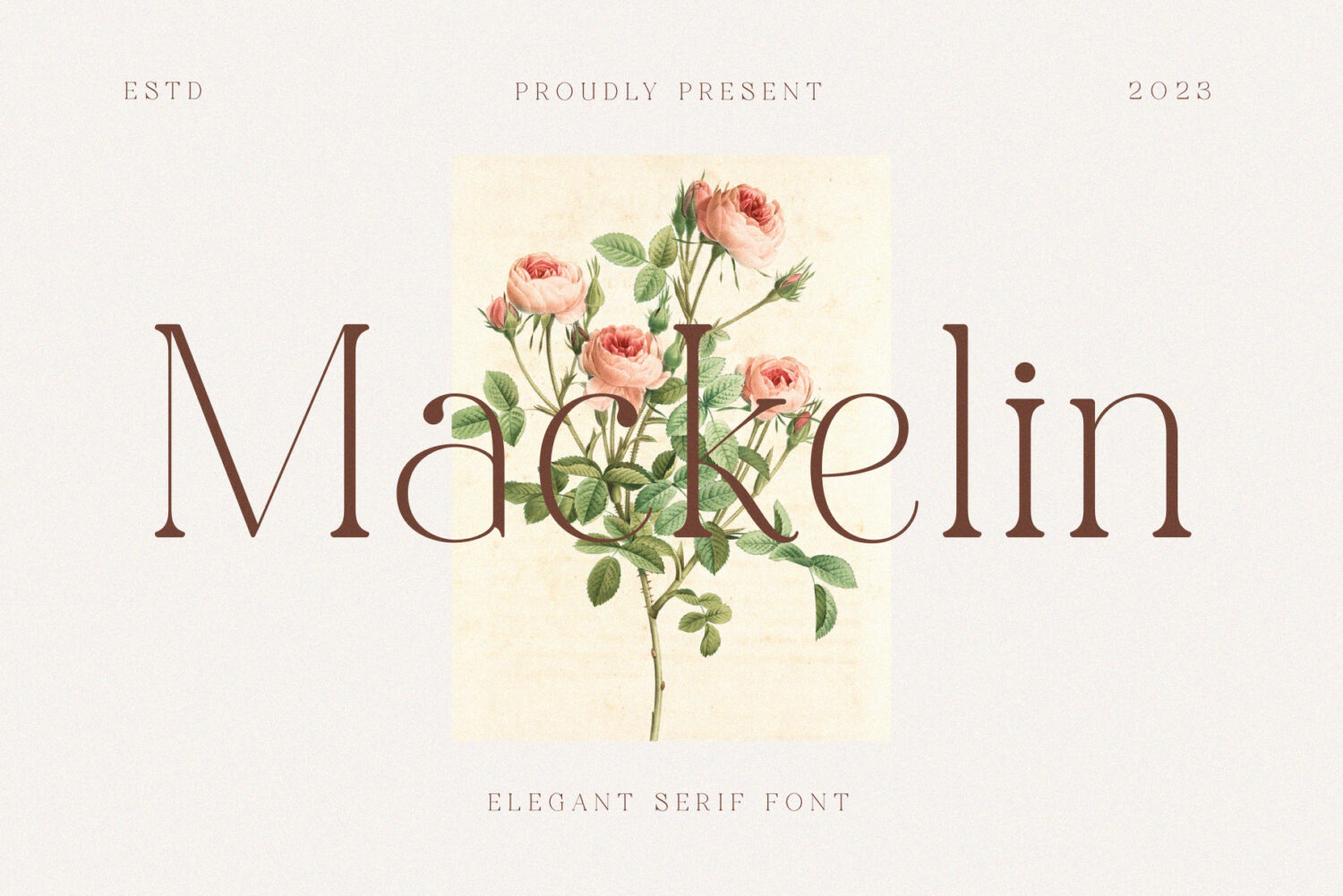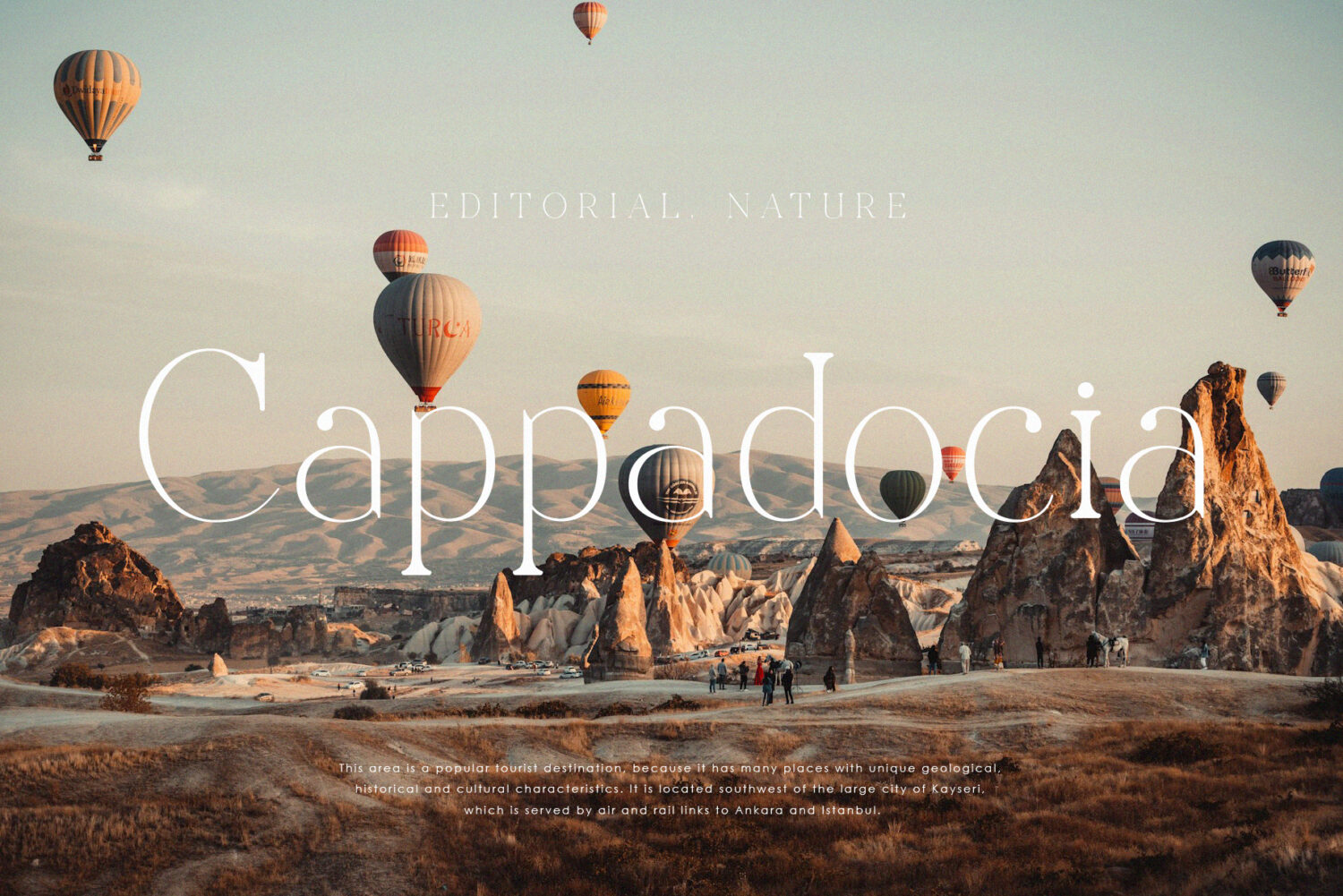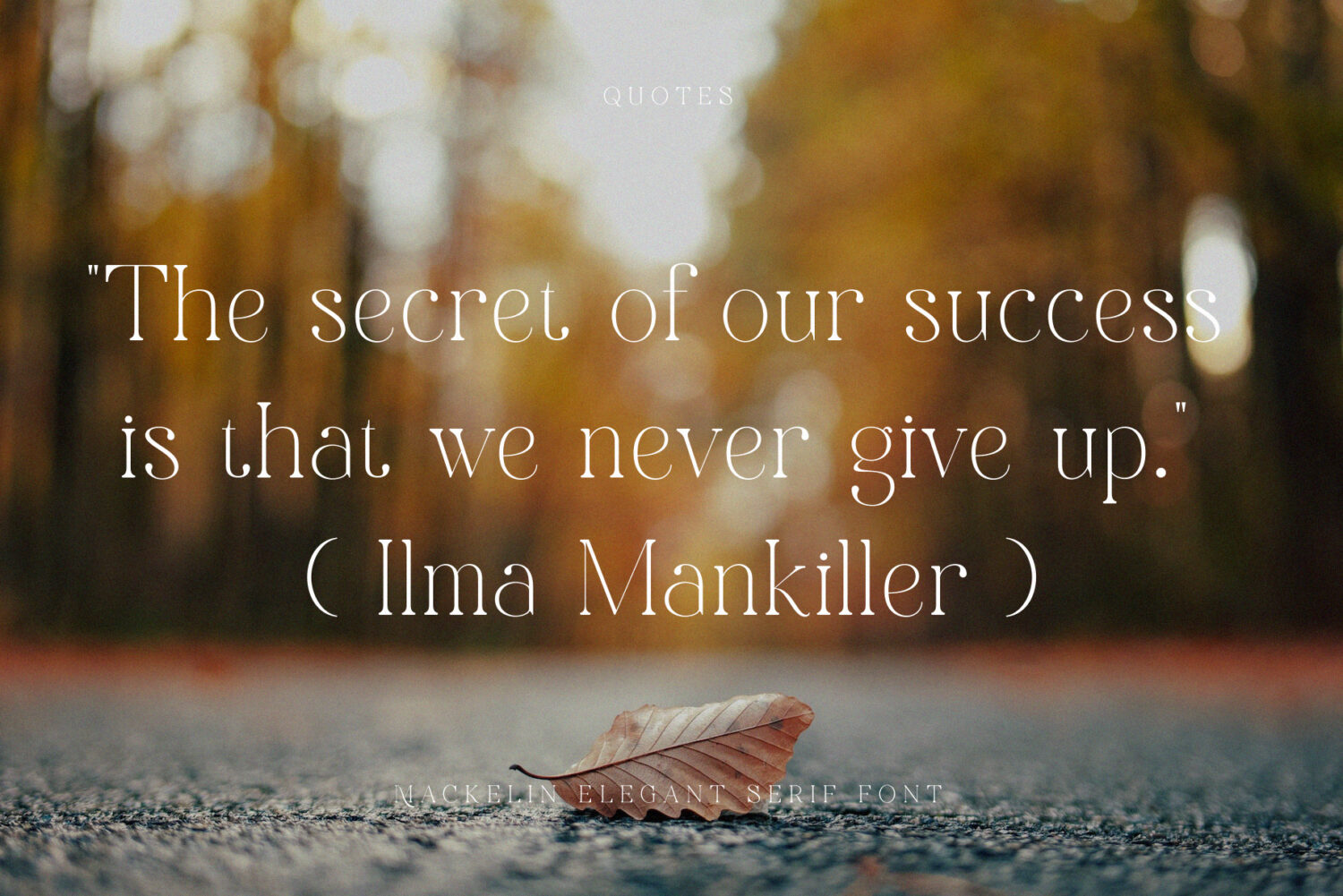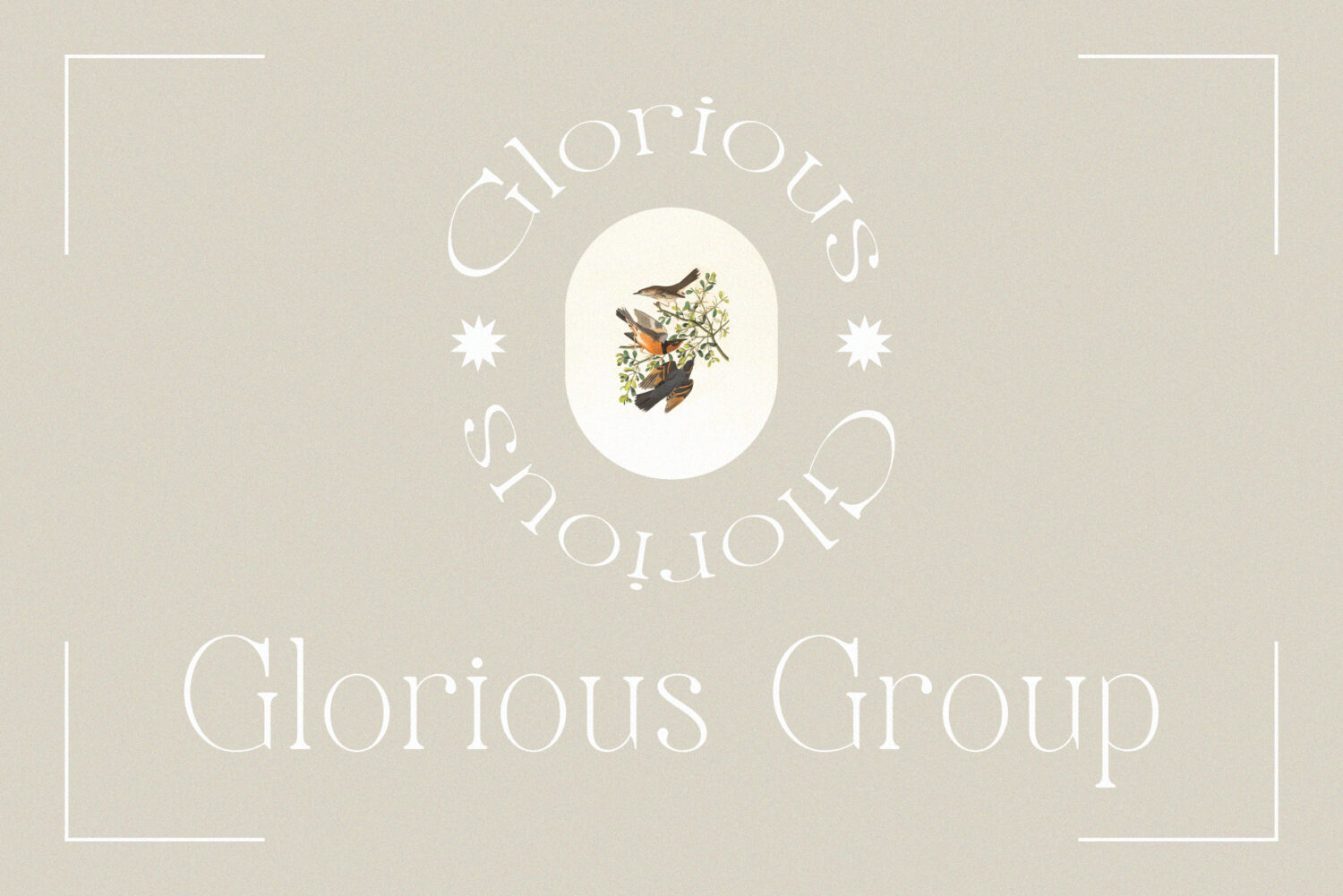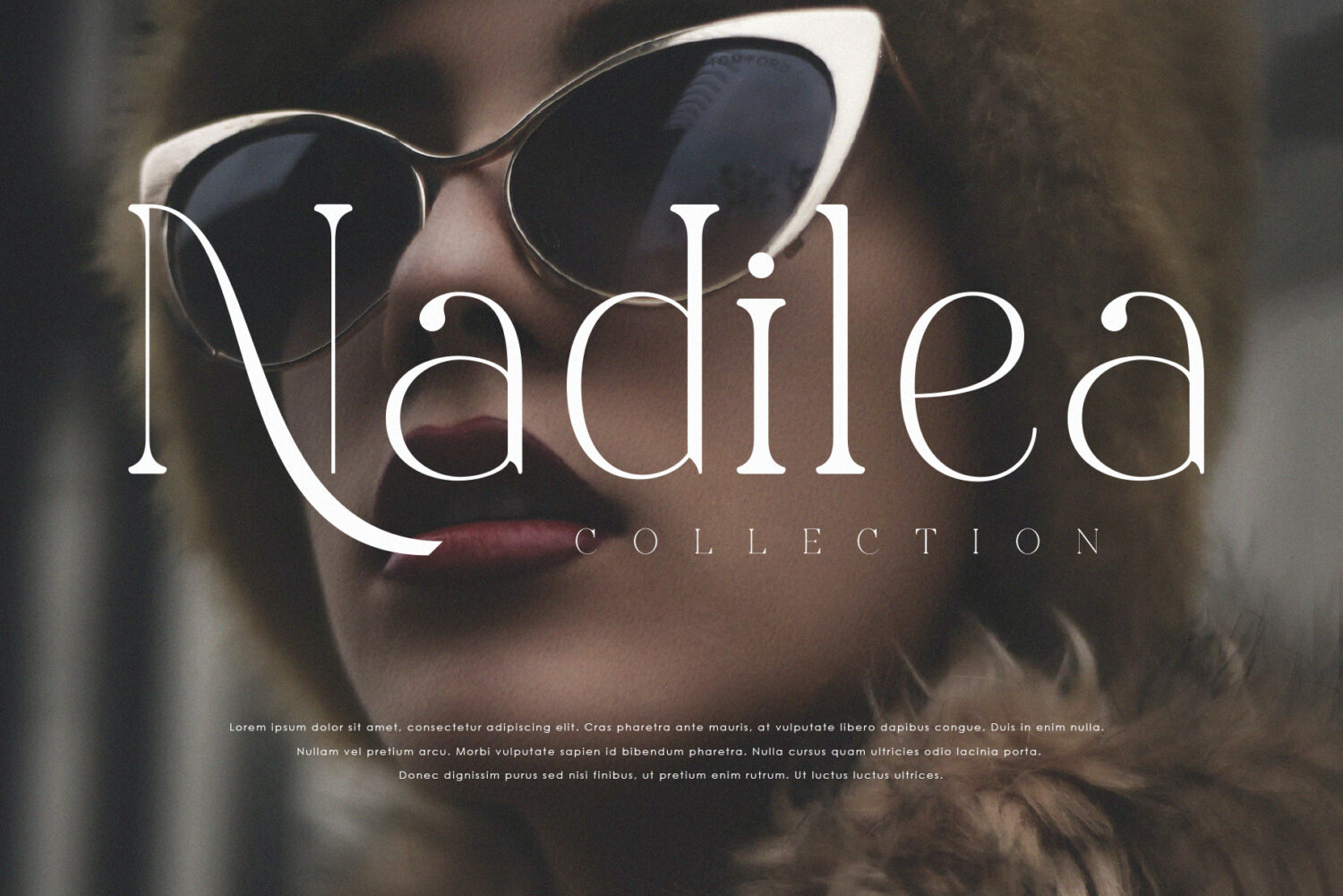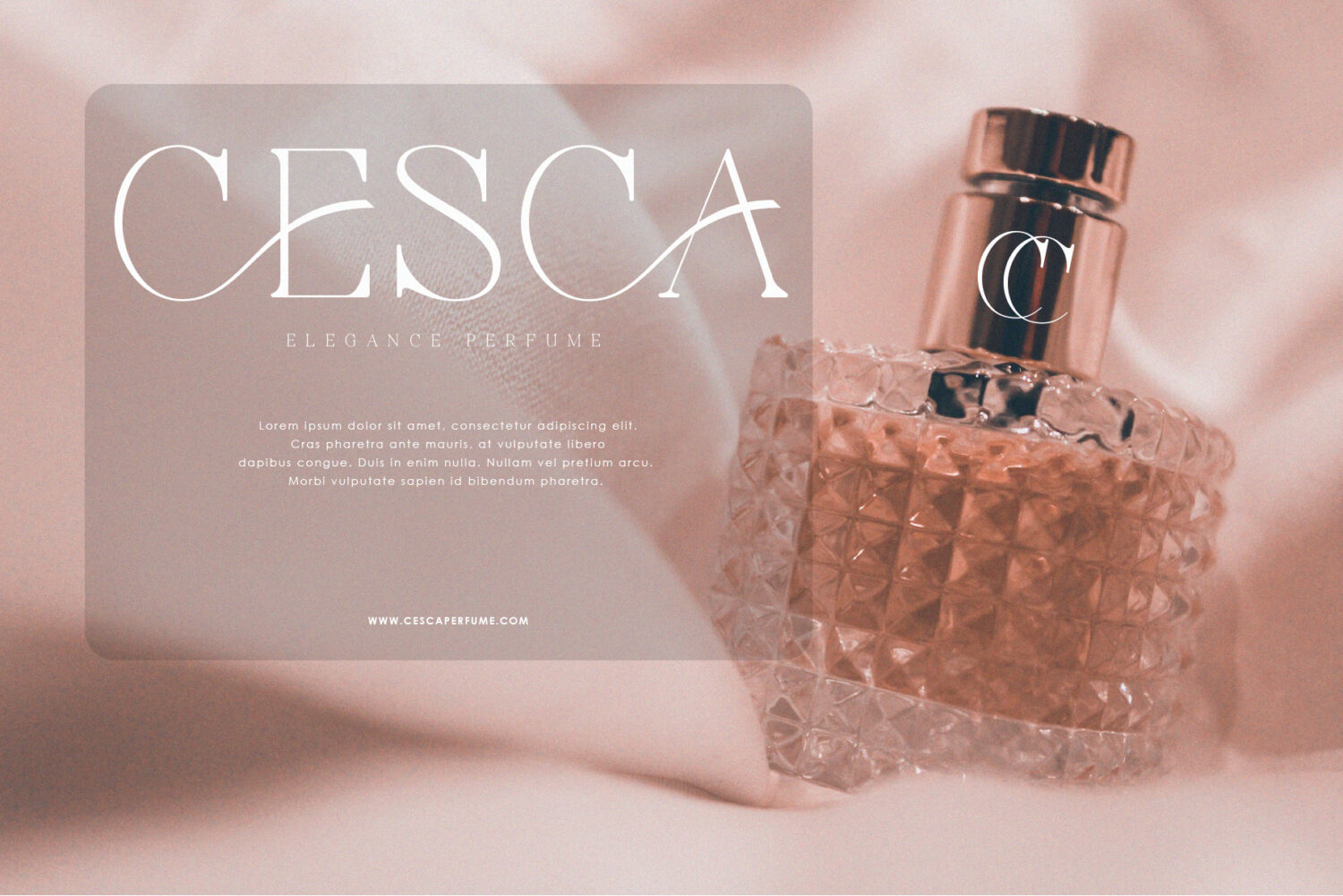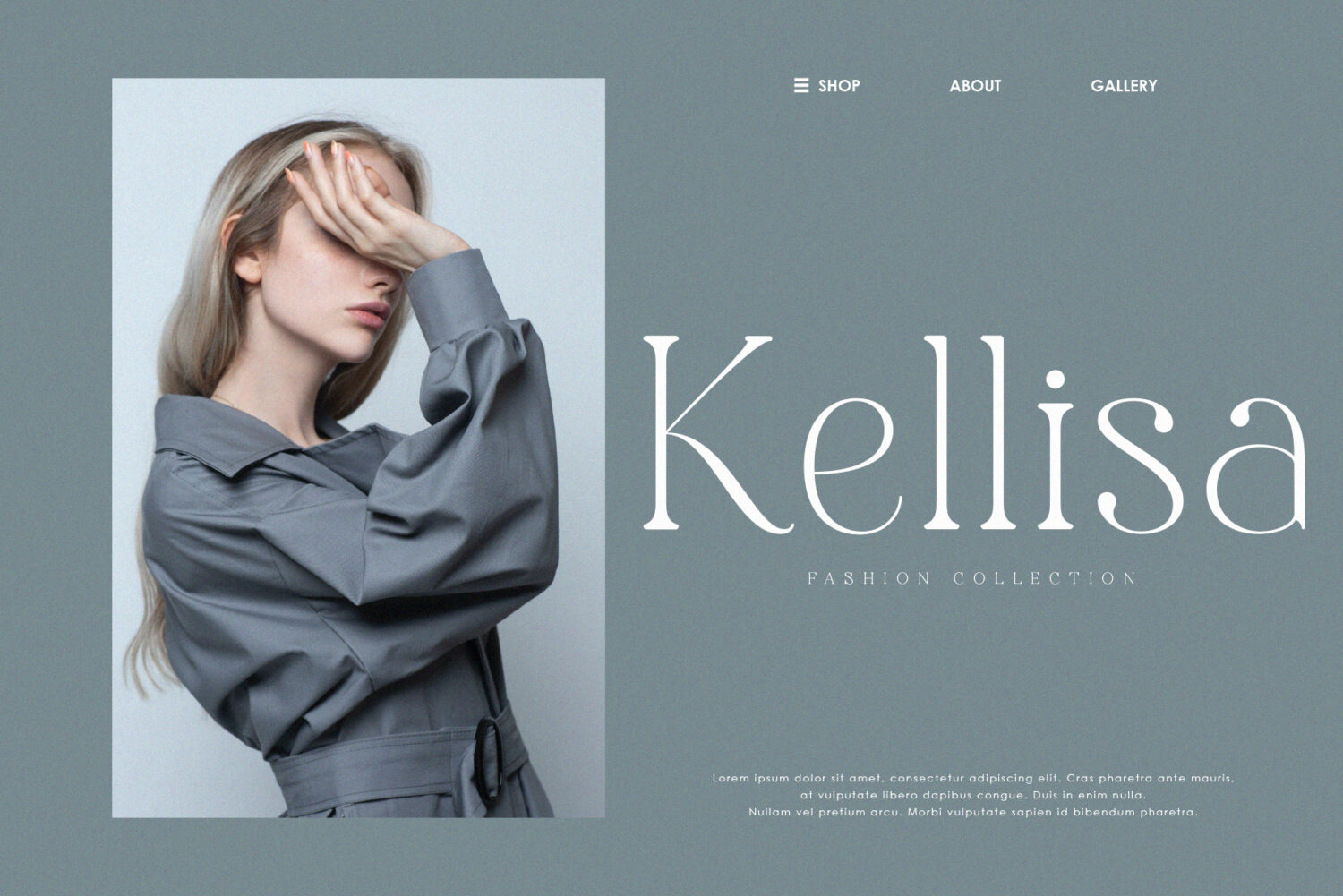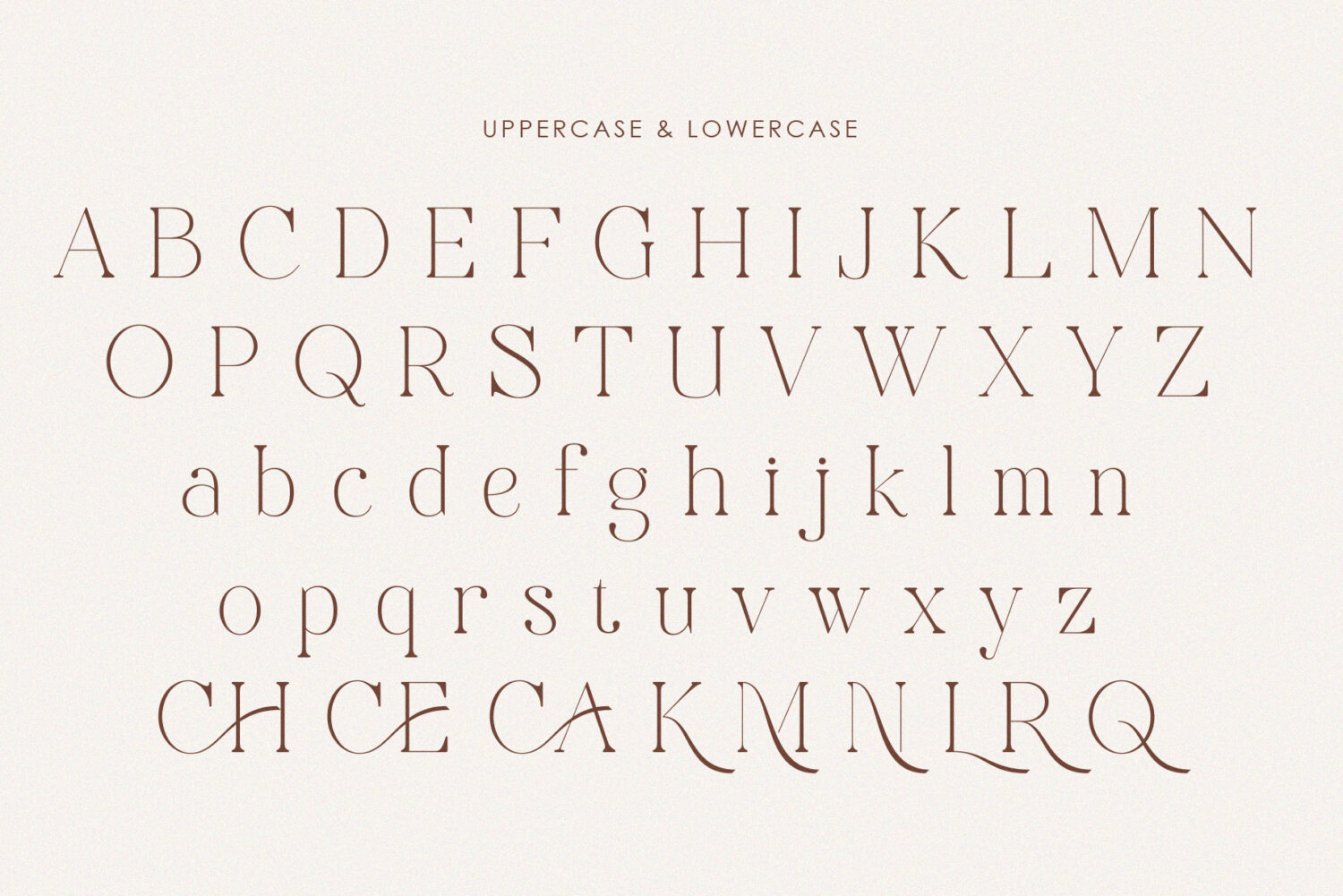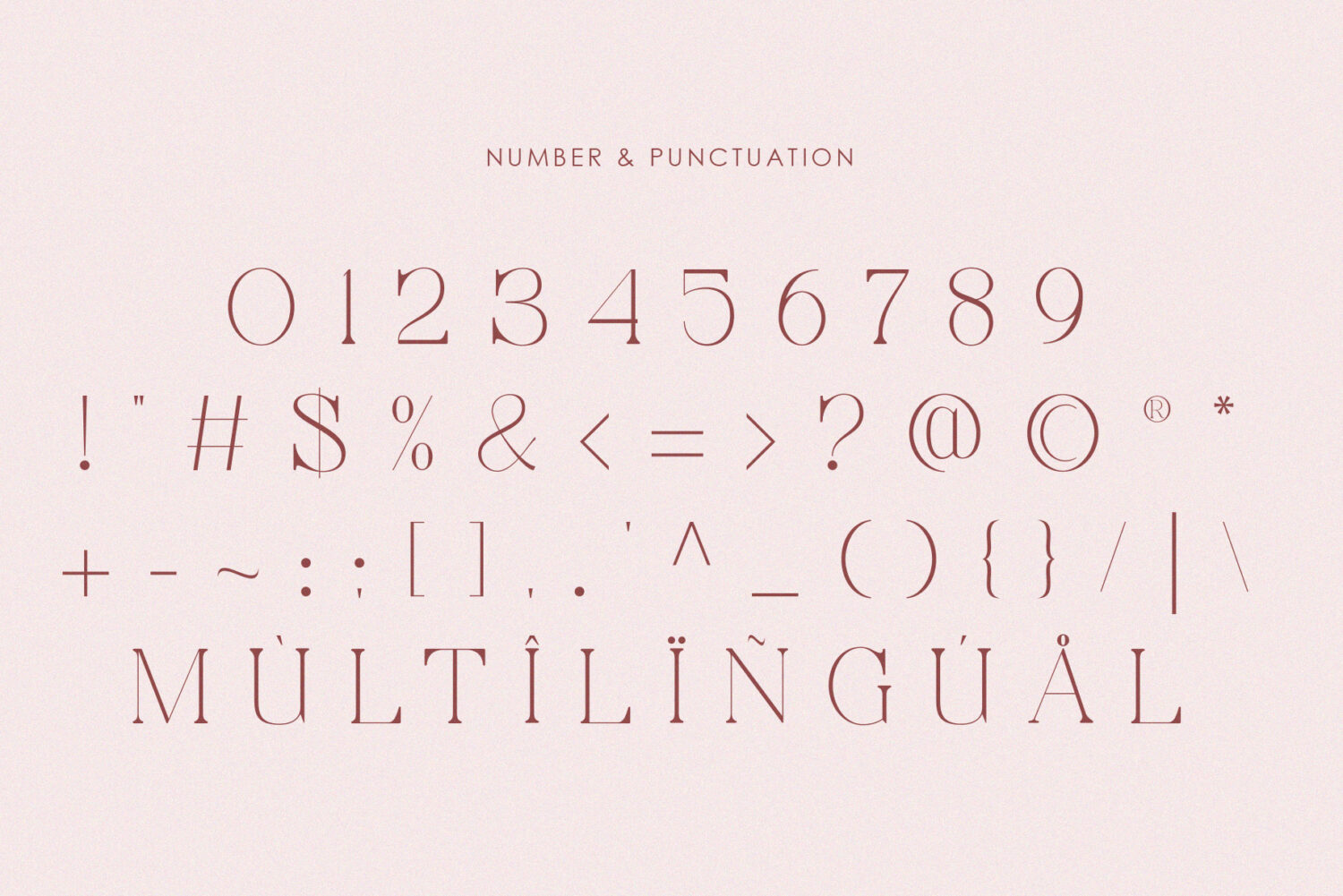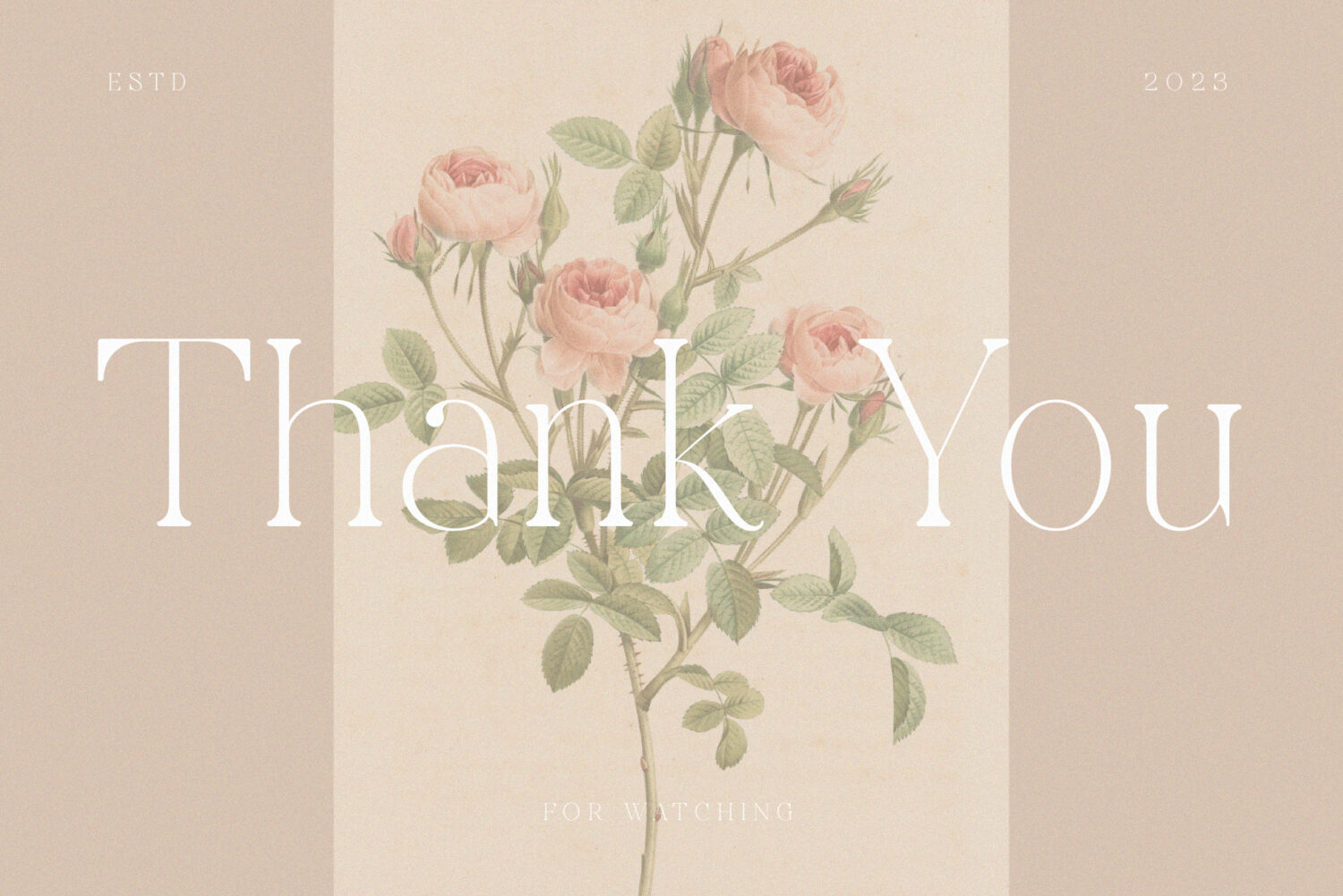
Introducing **Mackelin** the elegant, beautiful, and modern Serif Typeface. With its modern and minimalist look, Mackelin brings a luxurious, classy, and clean style to your projects such as websites, modern logos, brand identities, social media quotes, wedding stationery, magazines, and more!
Mackelin features unique and classy capital letters A to Z and also comes with unique alternates and ligatures making Mackelin a beautiful font that can be customized for various projects and jobs you want.
Mackelin is perfect for: logos, brands, wedding invitations, business cards, greeting cards, posters, magazines, social media, agenda prints, and websites.